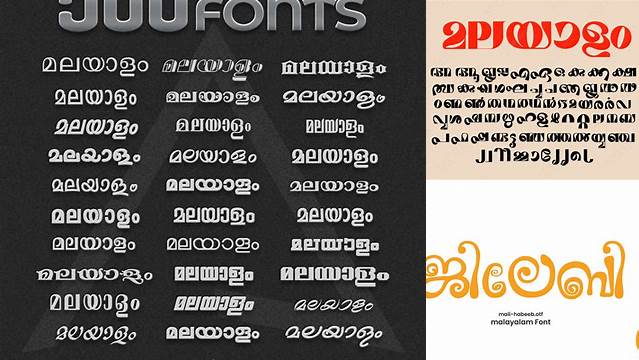
Find Malayalam Fonts From Images: Free Guide
Malayalam Font Finder from Image: Your Free Guide to Decoding Kerala's Typography
Hey guys, ever stumbled upon a beautiful piece of Malayalam text and wondered, "What font is that?" Or maybe you're a designer looking to replicate a specific style, or simply curious about the rich tapestry of Kerala's script. Well, you've come to the right place! In this guide, we'll dive into the fascinating world of Malayalam font identification, exploring how you can effortlessly find Malayalam fonts from images – and the best part? It's all free! We'll cover everything from the tools available to the nuances of the Malayalam script, ensuring you have all the knowledge you need to become a font-finding pro. Let's get started, shall we?
Understanding the Malayalam Script and Its Fonts
Before we jump into the nitty-gritty of font identification, let's take a moment to appreciate the beauty and complexity of the Malayalam script. Derived from the Vatteluttu script, it boasts a unique set of characters that curve and flow, reflecting the artistic heritage of Kerala. Knowing this will help a lot when you're trying to find Malayalam fonts from images. This writing system is more than just letters; it's a visual representation of a language spoken by millions. It also reflects the culture and traditions of the people of Kerala. The beauty is in the details, and the fonts themselves are a crucial part of this visual language. The fonts available vary greatly, from traditional styles that evoke a sense of history to modern designs that reflect contemporary trends. So many fonts, styles, and variations – it can be tricky to identify them. However, don't worry! Many tools can help you solve this font riddle.
In the early days, designing Malayalam fonts was an arduous task because the script's complexity was beyond the usual alphabet. But today, you have a wide array of options to choose from. The versatility of Malayalam fonts extends across various mediums – from print media like newspapers and magazines to the digital landscape of websites, apps, and social media. The fonts we see today vary depending on their intended use and purpose. Traditional fonts often have a more ornamental feel and are used for headings, while modern fonts are generally used for the body. Each font is carefully crafted to convey the message effectively while preserving the aesthetic. When you're looking for Malayalam fonts from images, understanding these aspects will give you a good start. This knowledge is a great starting point for anyone who wants to identify Malayalam fonts from images.
Free Tools and Methods for Identifying Malayalam Fonts
Now, let's get to the good stuff: the tools! Fortunately, several free and user-friendly resources can help you find Malayalam fonts from images. The basic idea is to upload an image of the text you want to identify, and the tool does its magic. However, keep in mind that the results will vary depending on the image quality and the complexity of the font. The tools can be a bit different, but the fundamental concepts are the same. Here's a rundown of some of the most popular methods:
1. Online Font Identification Services:
- WhatTheFont: This is a widely used tool known for its extensive database and user-friendly interface. All you have to do is upload the image, select the relevant text, and it does its best to identify the font. The more text you highlight, the better the results.
- Font Squirrel's Font Identifier: Font Squirrel is another great option, particularly for finding free fonts. It works similarly to WhatTheFont, allowing you to upload an image and identify the font. This option is handy if you're specifically looking for free Malayalam fonts.
- Image to Font: Image to Font is a tool that also allows you to upload an image or provide an image URL. It is fairly straightforward; upload your picture, highlight the text, and let the tool suggest some matching fonts.
2. Mobile Apps:
- Font Identifier Apps: There are various mobile apps available that use the same principle. You can take a picture of the text with your phone or upload an image from your gallery and the app will help you identify the font. These apps are especially handy when you're out and about and stumble upon some interesting text. They make it super easy to identify fonts on the fly. You'll be surprised by how much text you can find in the wild that gets your attention.
3. Manual Identification and Comparison:
- Sometimes, the automatic tools may not be accurate, or you may want to go the extra mile. In this case, you can manually compare the text with available font catalogs. Many websites and font foundries offer extensive libraries of Malayalam fonts. You can browse through these catalogs and compare the characters to find a match. This method requires more effort but can yield accurate results, especially if the automated tools are not working well. Make sure you carefully examine the letterforms, the curves, the serifs, and the overall style.
Tips for Successful Malayalam Font Identification
To get the best results when you find Malayalam fonts from images, here are some helpful tips and tricks. Even if the tools are pretty amazing, they still depend on the quality of the image and other factors. Following these tips will increase your chances of success.
- Image Quality: This is the most important factor. Make sure the image is clear, well-lit, and in focus. Blurry or low-resolution images will make it harder for the tools to identify the font. The better the image, the more accurate the results.
- Text Selection: When using online tools or apps, carefully select the text you want to identify. Try to isolate the specific characters or words that you're interested in. Avoid including any extra elements in your selection. This will make it easier for the tool to understand what it needs to look at.
- Font Variations: Malayalam fonts come in various styles, weights, and sizes. Be sure to consider these variations when comparing fonts. Don't focus on only one character; try to look at several to get a better sense of the font.
Conclusion: Embrace the Beauty of Malayalam Typography
So, there you have it, guys! You're now well-equipped to find Malayalam fonts from images like a pro. With the right tools and a bit of practice, you'll be able to identify your favorite fonts and appreciate the unique beauty of the Malayalam script. So, go ahead, experiment with the tools, and start exploring the world of Malayalam typography. Happy font hunting! Remember, the more you practice, the better you'll get at identifying fonts. Don't be afraid to try new things, and always keep learning. The Malayalam script is full of beautiful designs, and you'll have a lot of fun discovering them. Cheers!